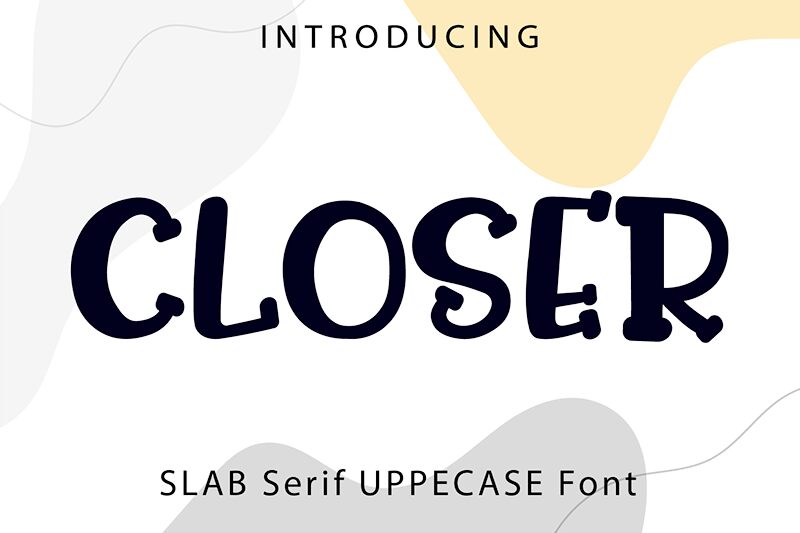
Closer, a bold display font designed by Qara, is great for projects that require a unique and playful touch. From cartoons to posters, this font will bring an extra layer of vibrancy and excitement to your work. It looks stunning when used in larger sizes and its creative style will ensure you stand out from the crowd. Closer is the perfect choice for logos, branding materials and titles that need an eye-catching twist.